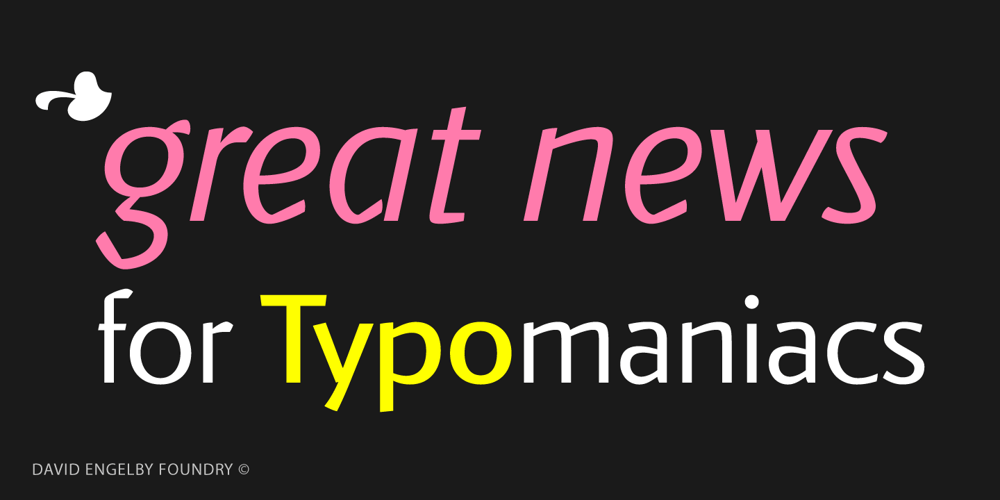
Onward Font Family was designed by David Engelby and published by David Engelby Foundry. Onward contains 4 styles and family package options. Looking for a sans serif that is ready to work hard for you? Meet Onward; simple and elegant in all sizes as well as legible in small sizes. Explore and write some sample texts here on the website and see all the fine distinctions between weights and styles regular, italic, bold and bold italic. Onward also offers many ligatures, arrows, alternatives, small caps, special numerals for capital letters/small caps/regular respectively … and more! Onward is a natural choice for a corporate font, for logos, for brochures and a whole range of other purposes in relation to creating a strong visual and modern identity. Keep the family together and get a discount: $55.